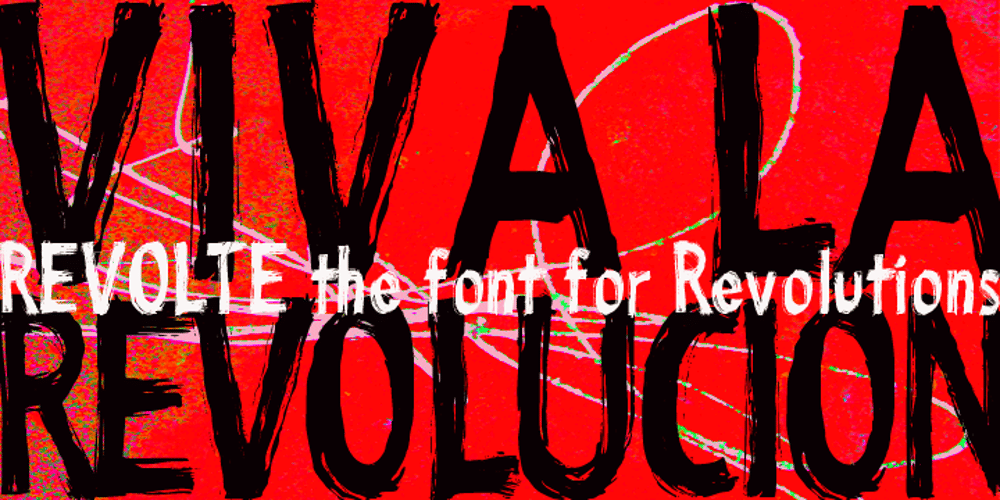
Revolte Font Family was designed by Gert Wiescher and published by Wiescher Design. Revolte contains 1 styles and family package options. Whenever I see clippings on TV of demonstrations, protesting against this or that, with people holding up signs, I am surprised about the signs being professionally printed or plotted in Helvetica or Futura condensed. I’ve even seen signs in Zapfino! That doesn’t really cut it, it doesn’t look much like a real protest. So I decided to give the protesting world a real good font for the occasion. In German a Revolte is an uprising, I thought that was a good name for the font. Hasta la victoria siempre from your revolutionary type designer Gert Wiescher.